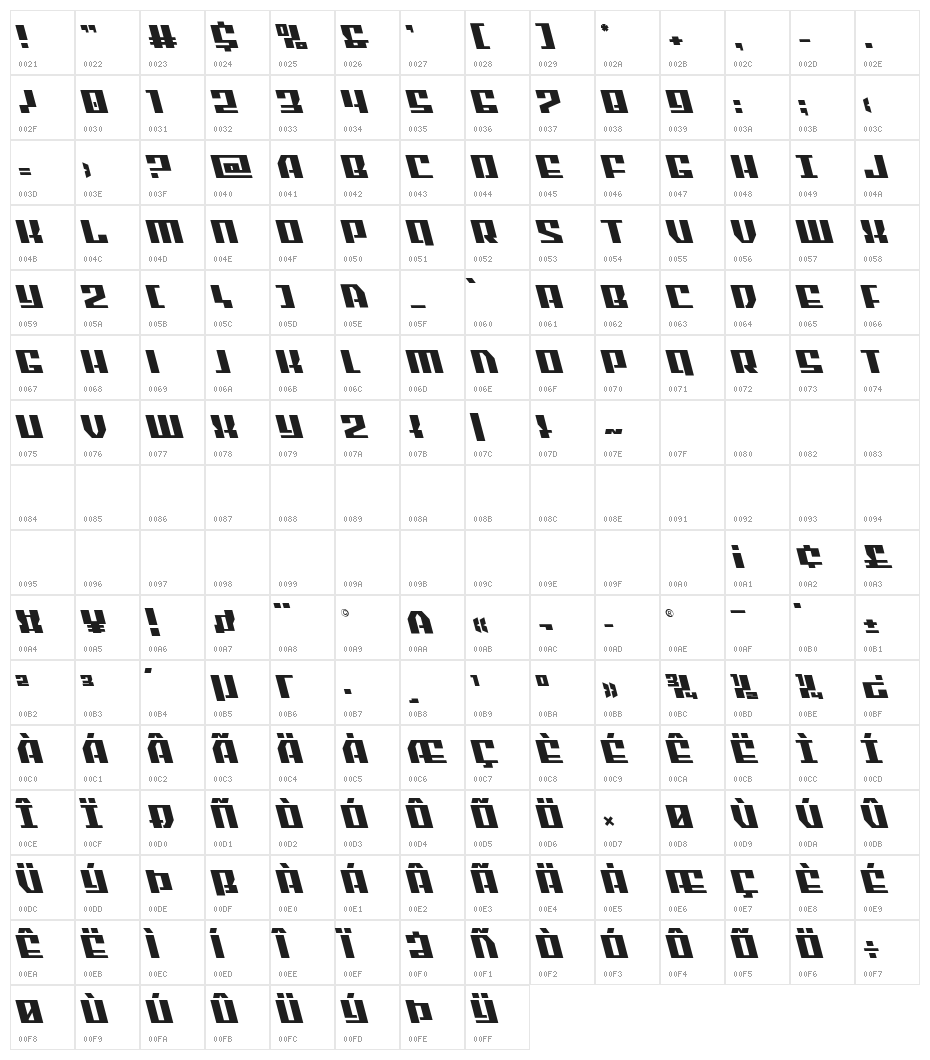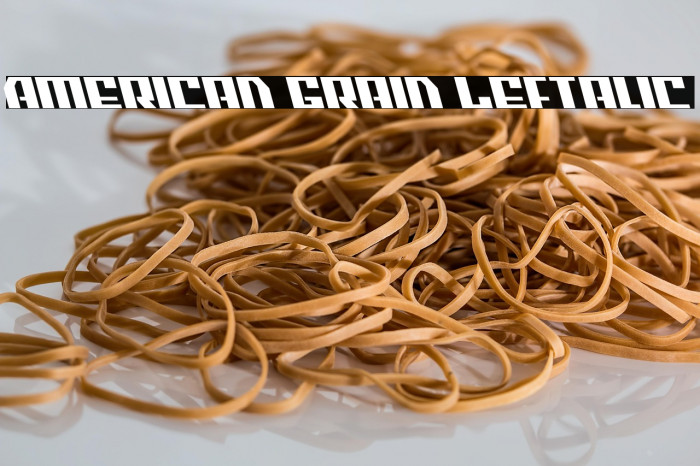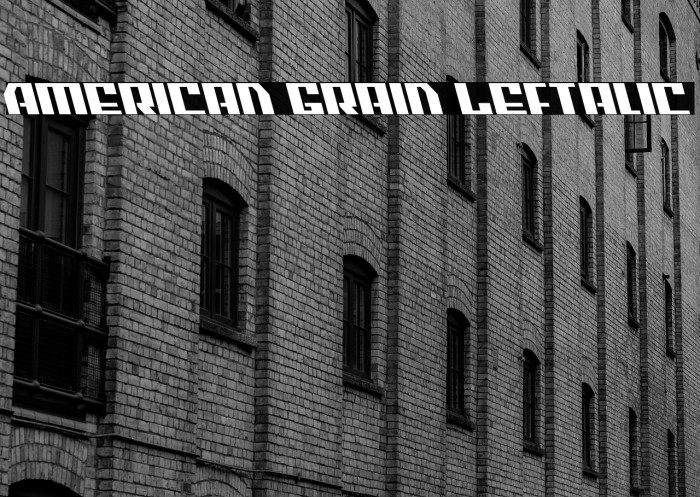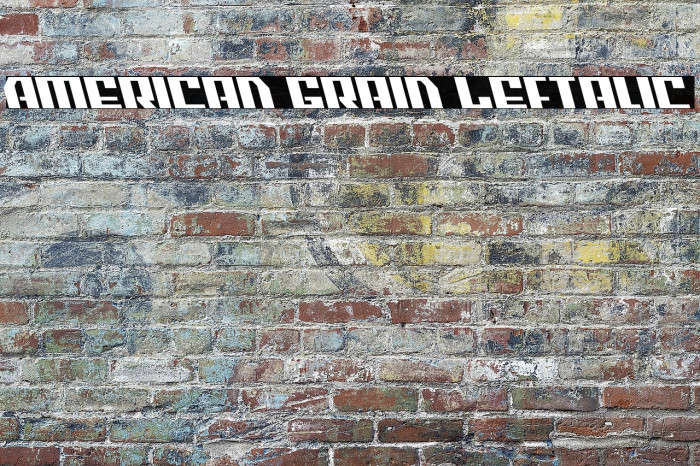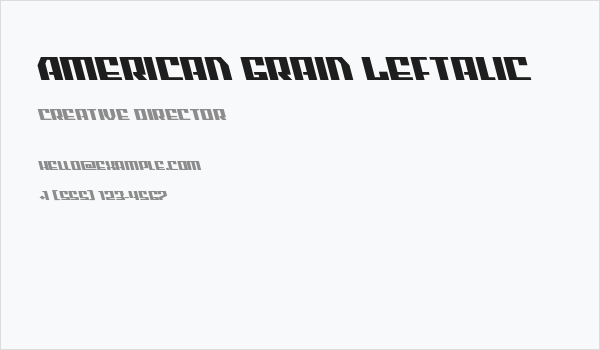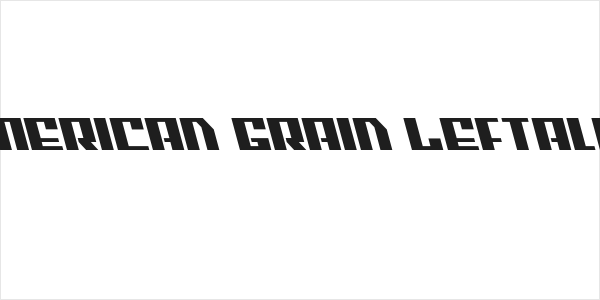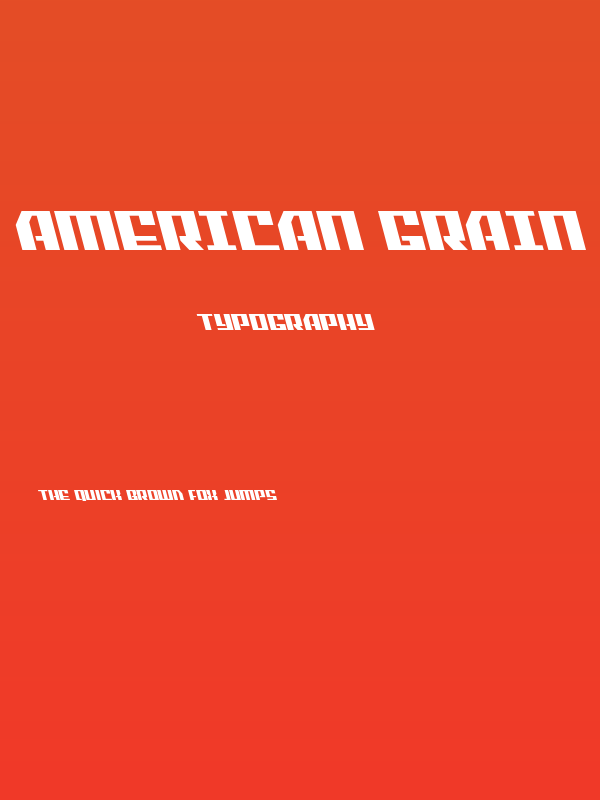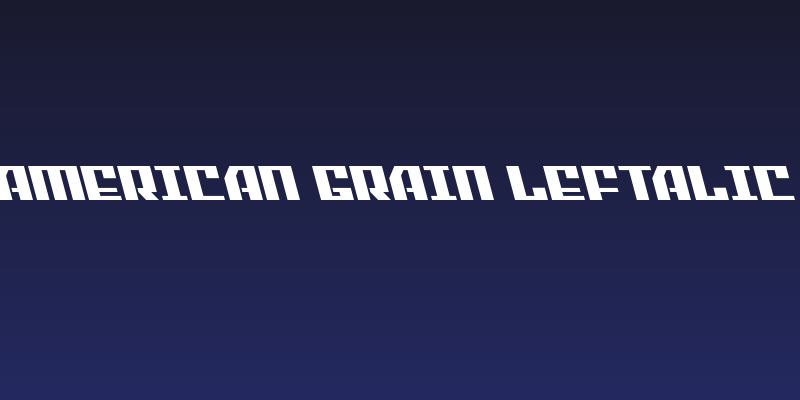
American Grain Leftalic Font
American Grain Leftalic Description
This font features a bold and angular design with a distinct leftward slant, giving it a dynamic and energetic appearance. The characters are blocky and geometric, with sharp edges and a strong presence. The uppercase and lowercase letters maintain a consistent style, while the numbers and special characters complement the overall aesthetic. The font's unique style makes it stand out, with a modern and slightly futuristic feel. It is well-suited for projects that require a bold statement or a strong visual impact.
| Proposed Projects | Ideal for branding, posters, headlines, and any project needing a bold, impactful typeface. |